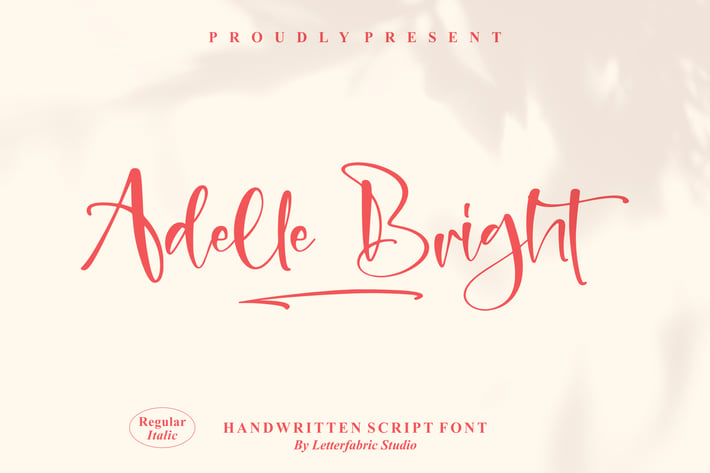
Adelle Bright Handwritten Script Font
Adelle Bright is a stylish handwritten script font that combines a casual flow with a bright, bold touch. Designed to add warmth and personality, itβs the perfect companion for creative projects that require both elegance and approachability. Whether for branding, invitations, or social media designs, this font delivers charm and impact.
+ Handwritten script style with smooth strokes
+ Includes Regular & Italic versions
+ Multilingual support
+ Suitable for both print and digital designs
+ Posters & social media posts
+ Branding & invitations
+ Logos & personal projects
+ Promotional materials.
Bring your words to life with the charming handwritten elegance of Adelle Bright.